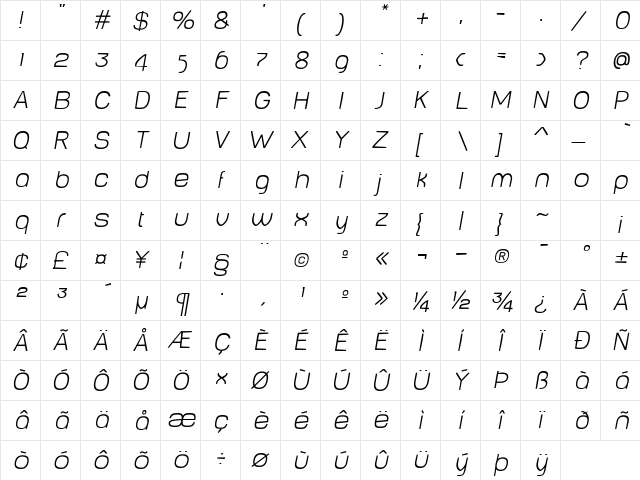
Baby MineThinOblique
Design Context for Baby Typeface
Baby offers clean, dependable letterforms without strong stylistic allegiance, making it a practical choice for designers who need flexibility. Its italic angle brings a sense of urgency and motion to the letterforms. Its slender proportions lend an understated elegance to any composition.
Pro Tip: Try Baby for annotation and caption copy alongside an upright companion — the contrast in angle creates a dynamic but ordered typographic system.